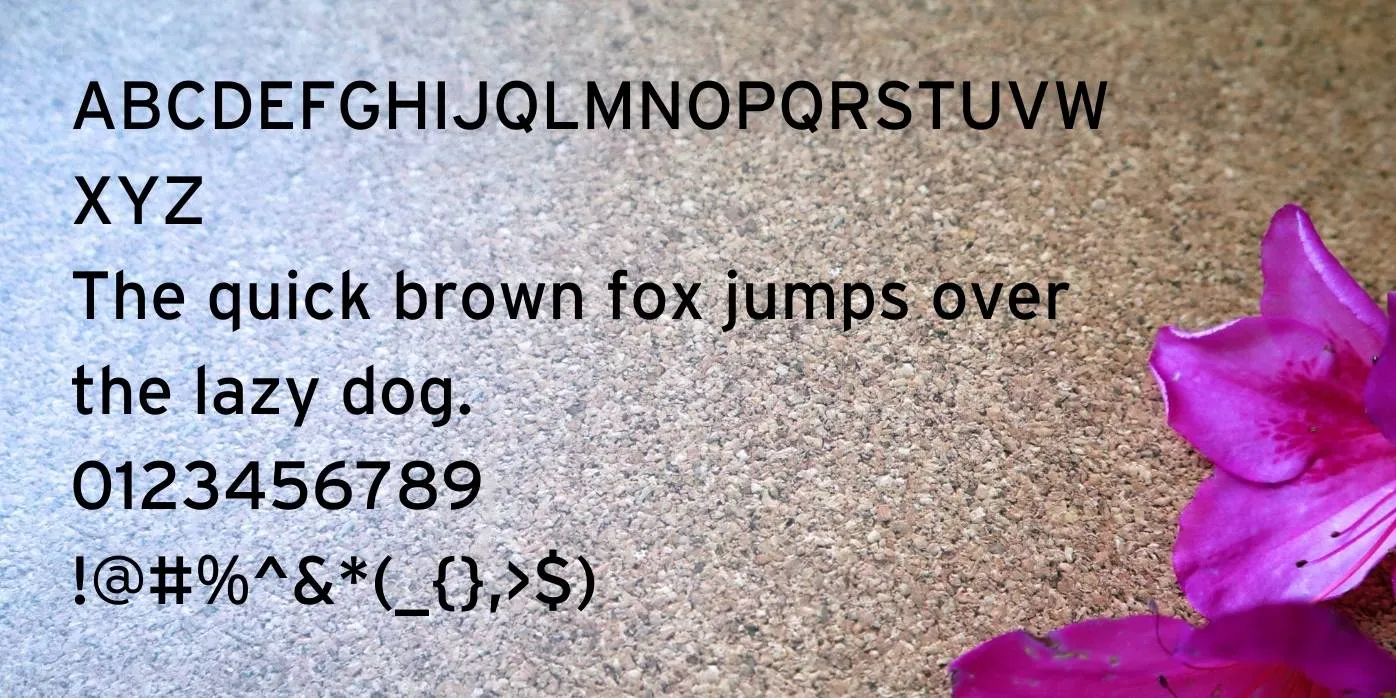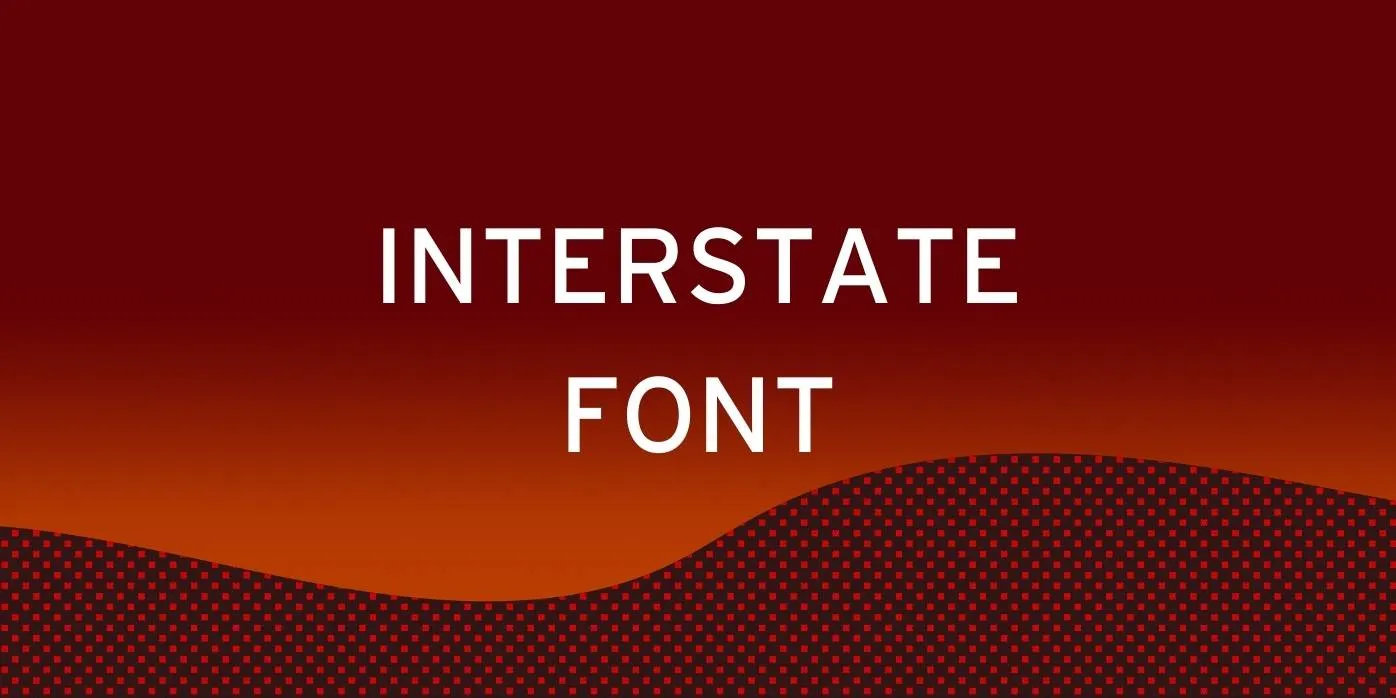
Interstate Font
Interstate font is one of the most famous typefaces with a huge amount of family and greater styles. This popular typeface family belongs to a Sans Serif font family. It is designed by Tobia Ferere Jones in the period of 1993-1999. This typeface has three styles and weights consists of Light, Regular and Bold, etc.
And all the weight has Uppercase and Lowercase Letters, Numbers and numerals and Useful symbols also. It’s all weights has TrueType Features and is ready to download right here. The font family is free for personal projects. It has the ability to support many languages and it is great for web and print projects.
You may see this typeface in many famous websites and many famous logos as well. Its characters and very beautiful effects.